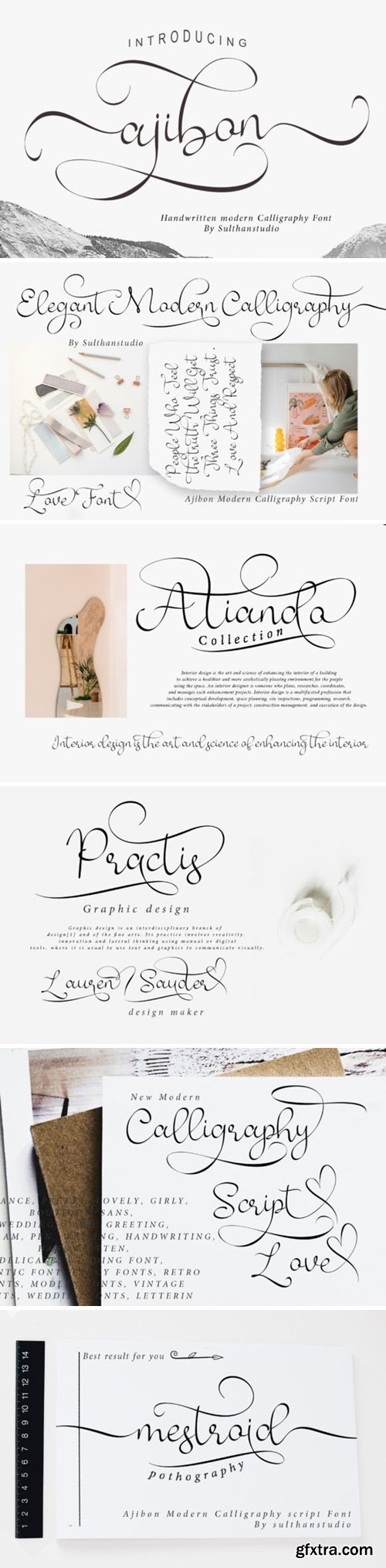
阿吉邦字体
Ajibon is a flowing script font that embodies graceful fluidity and contemporary elegance. Its seamless, handwritten letterforms create an organic and rhythmic aesthetic. Ideal for projects requiring a touch of sophistication and warmth, Ajibon adds a delightful and expressive flair to your creative expressions.